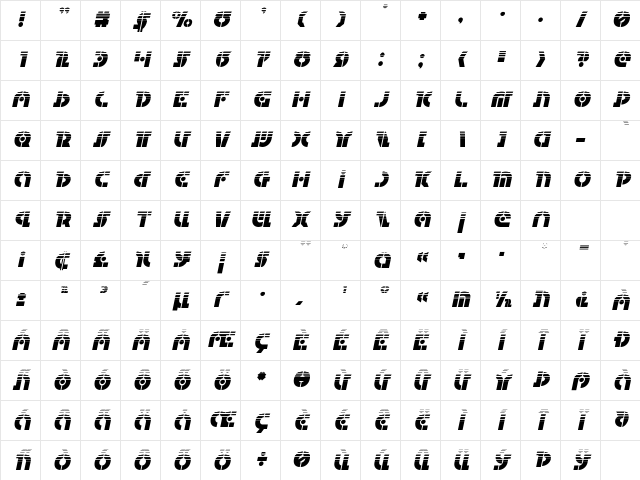
Questlok Halftone Italic is a composed and adaptable typeface that performs quietly and consistently across a wide range of design contexts. The slanted form adds forward momentum and visual energy.